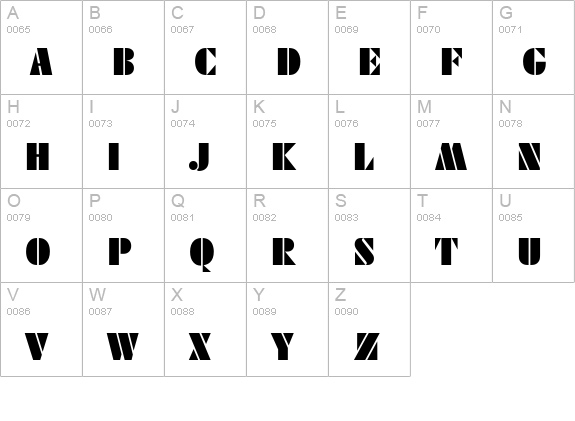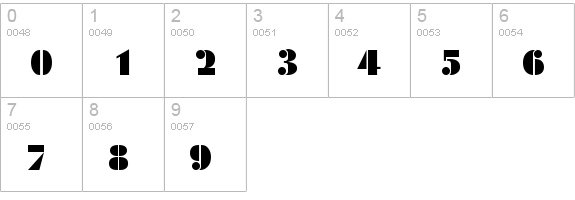
DecoBlack-Regular Font Details
DecoBlack-Regular is the standard, neutral variant in the DecoBlack typeface family \xE2\x80\x94 well suited to general body text, paragraphs, and standard typographic work.
DecoBlack-Regular font is a stylish and sophisticated typeface that exudes elegance and modernity. With its clean lines and bold strokes, this font is perfect for creating eye-catching designs that demand attention. The sleek geometric shapes of DecoBlack-Regular add a touch of class to any project, making it ideal for various design purposes. The best part about DecoBlack-Regular font is that it is free to download at FontsMarket.com. This means you can easily access this premium font without any cost, allowing you to elevate your designs without breaking the bank. Whether you're working on branding, advertising, or any other creative project, DecoBlack-Regular font is sure to make a statement and leave a lasting impression. Download it today and take your designs to the next level!